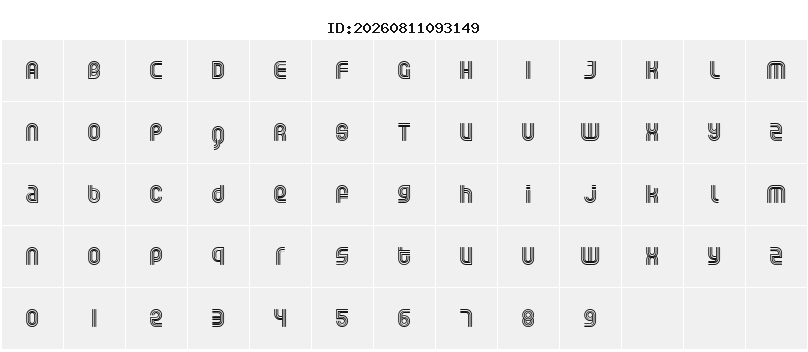
Rolloglide Preview
• Font Name: Rolloglide
• Full Font Name: Rolloglide
• PostScript Name: Rolloglide
About Rolloglide.ttf
Rolloglide.ttf is a modern, elegant sans-serif font designed for ultimate readability and visual harmony. Perfect for branding, headlines, web design, and print materials.